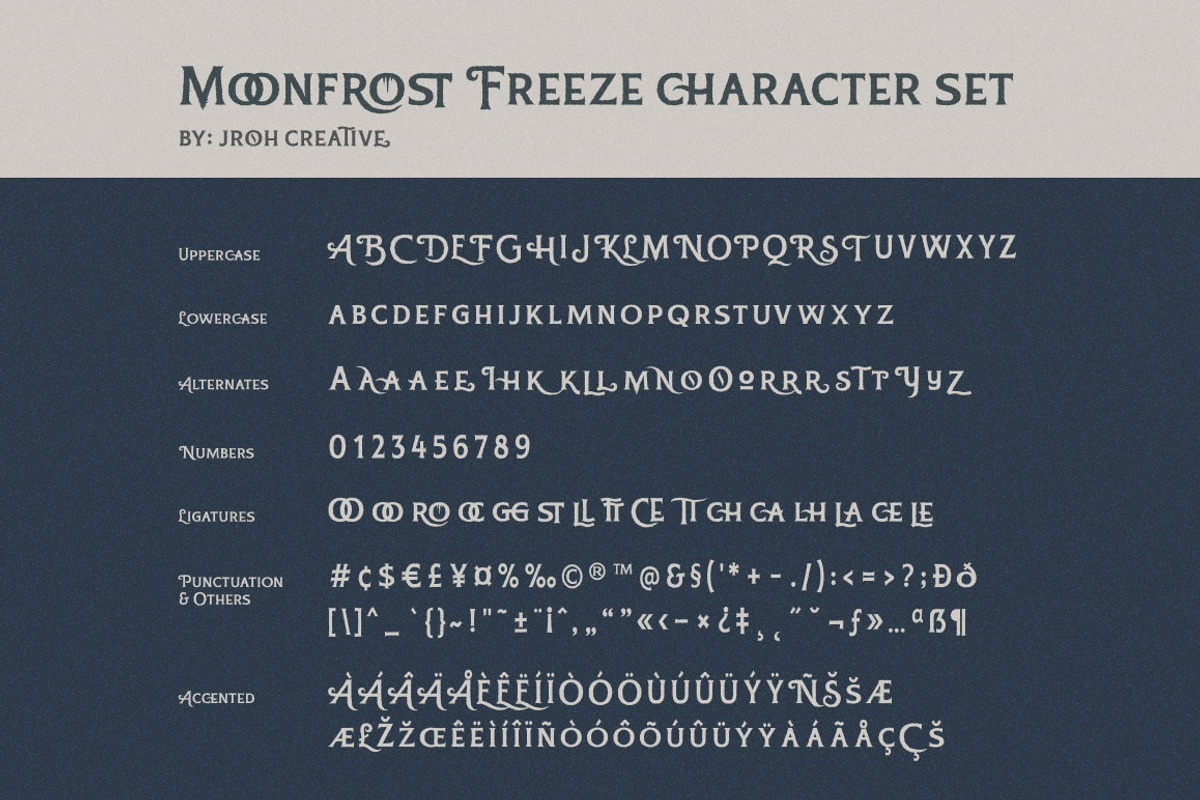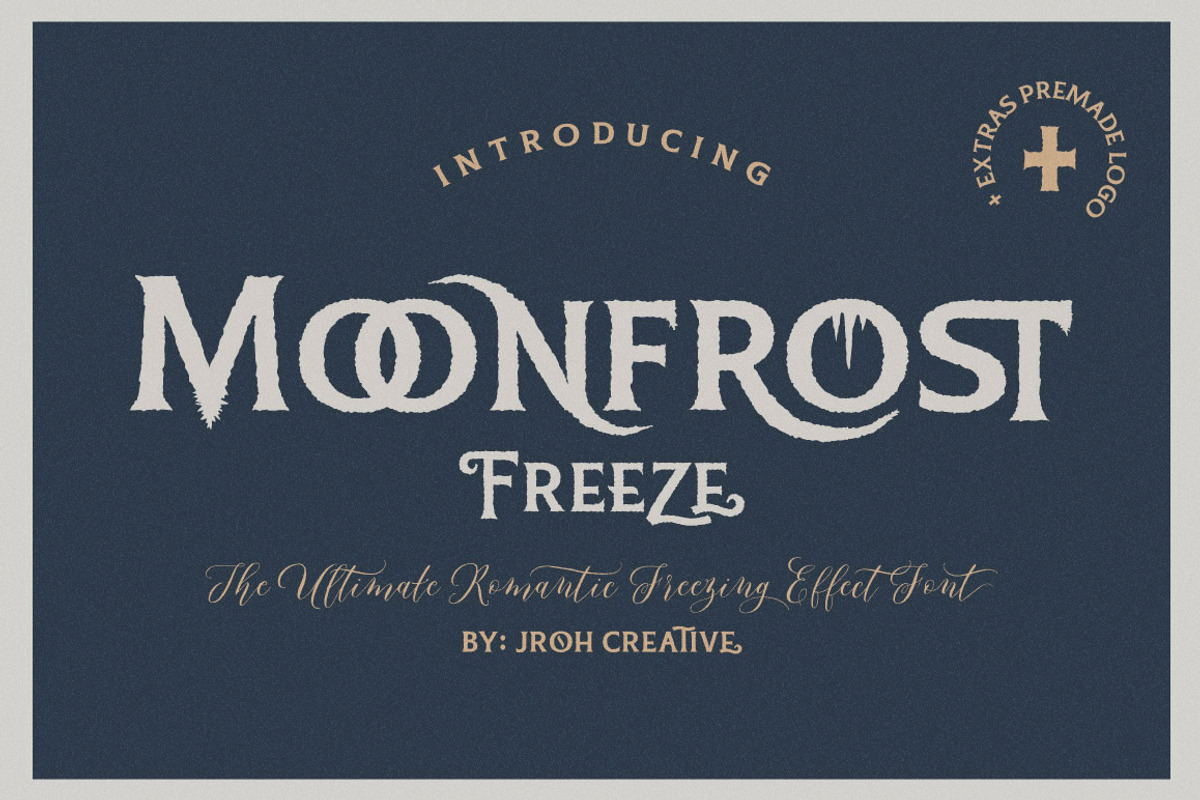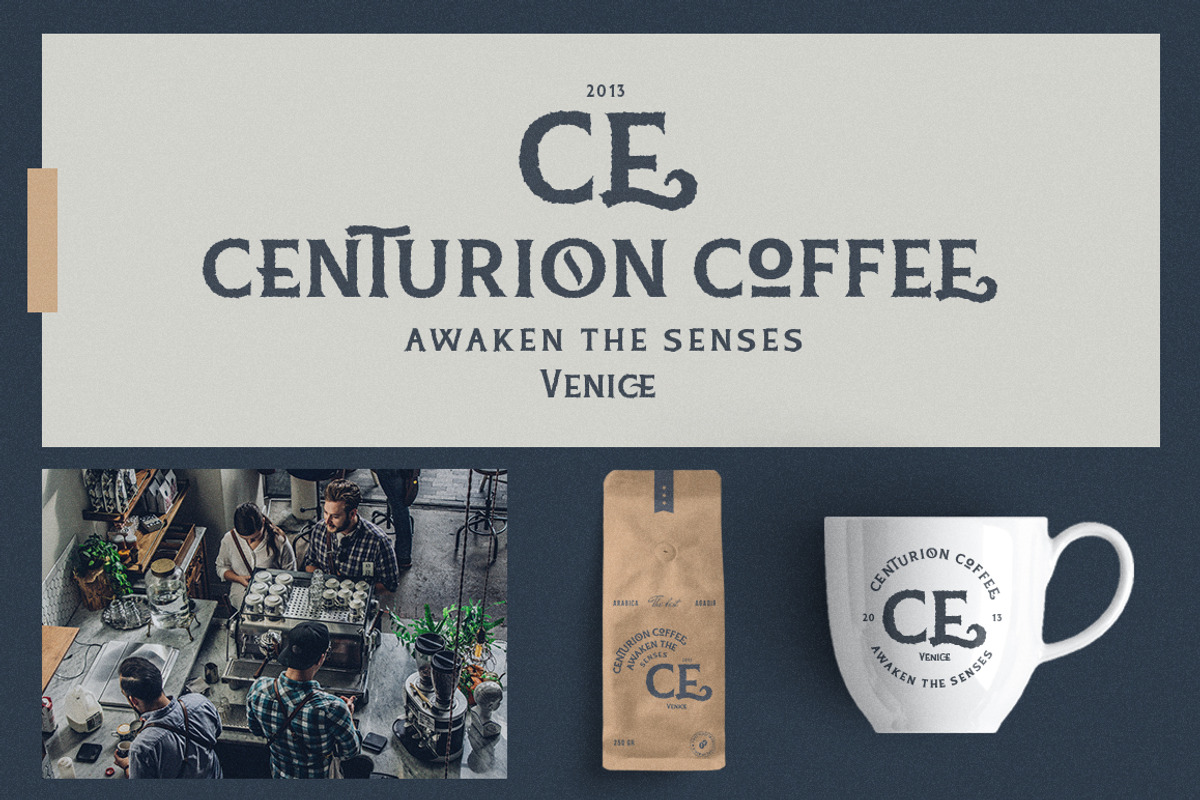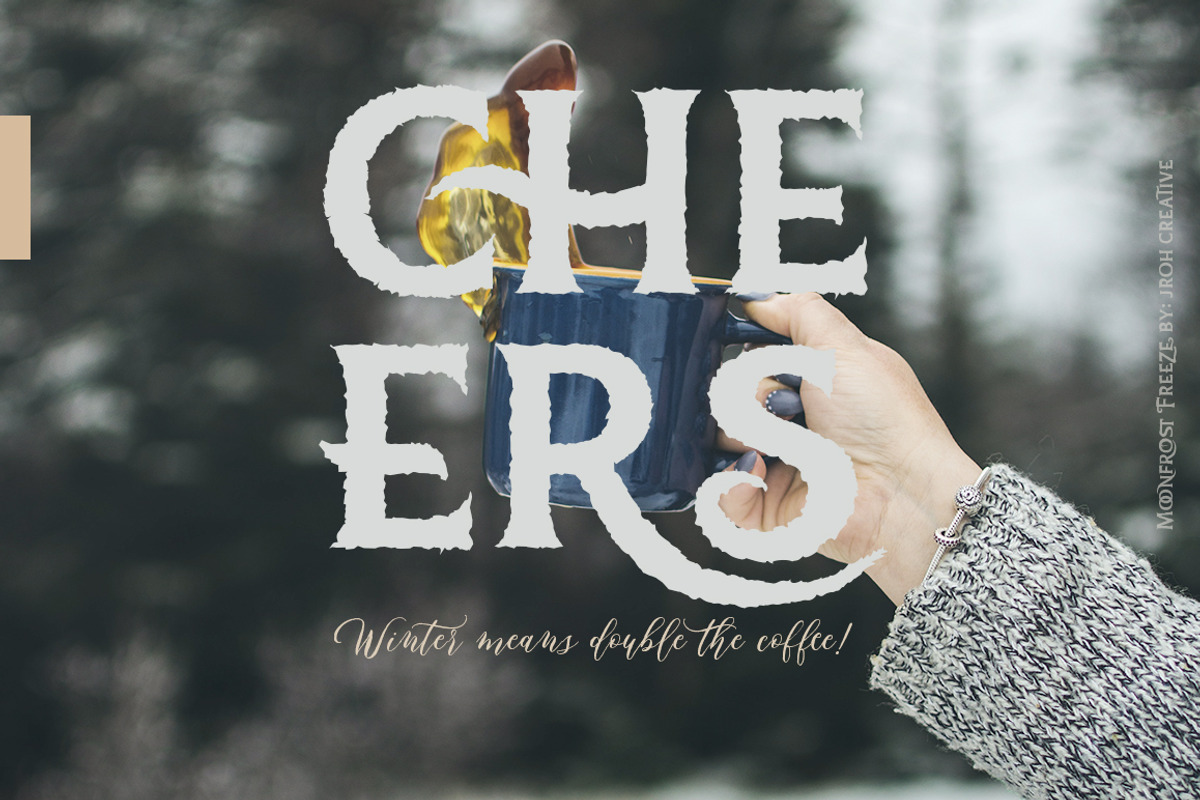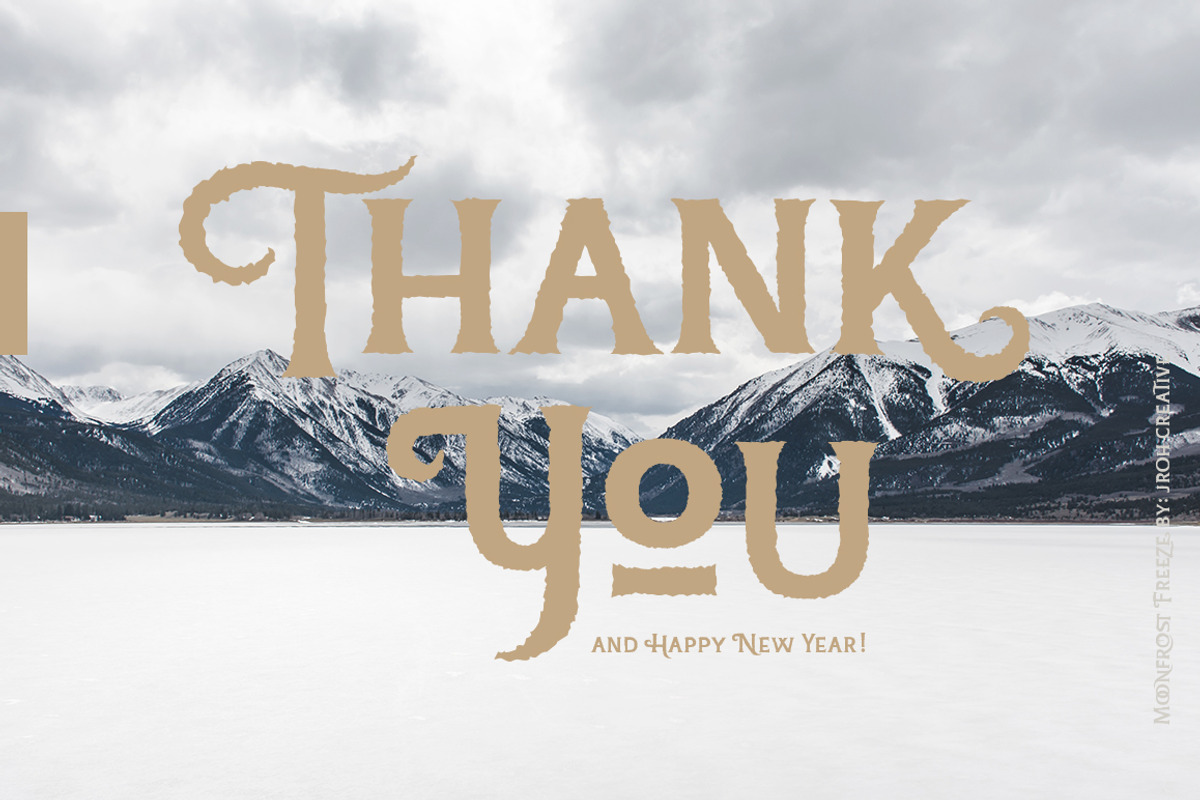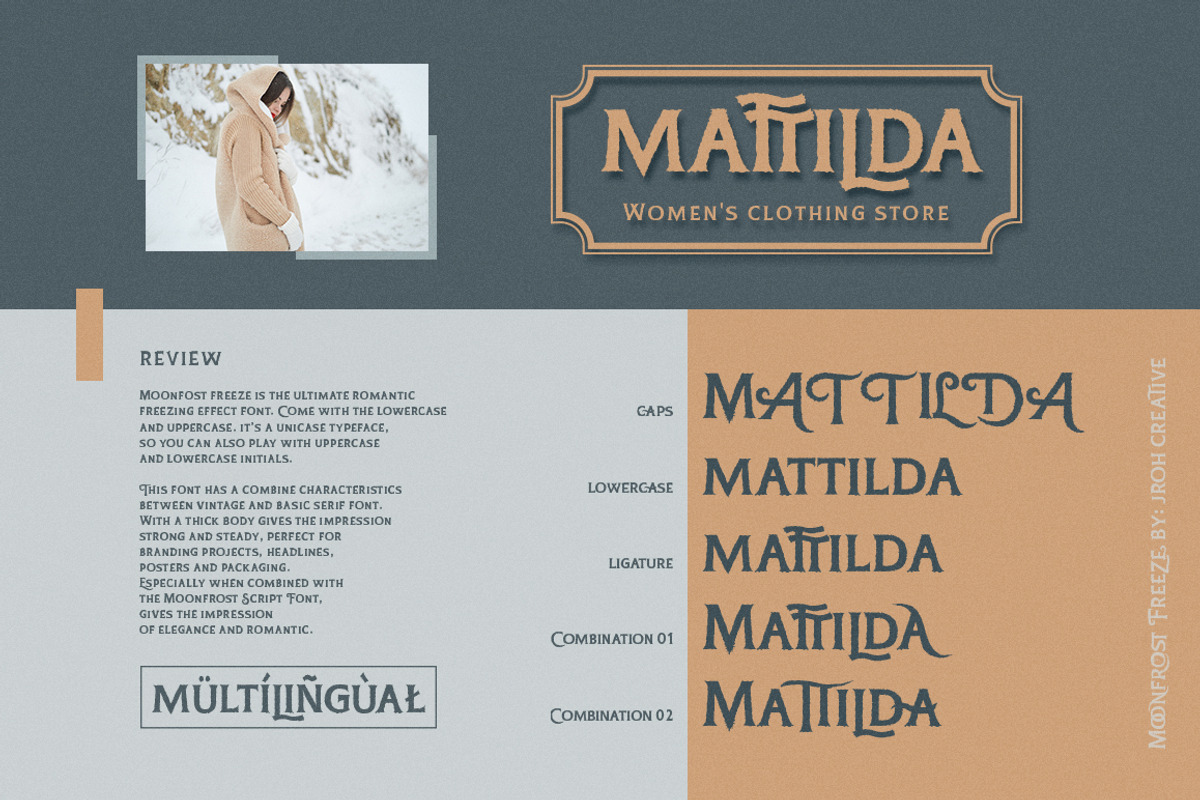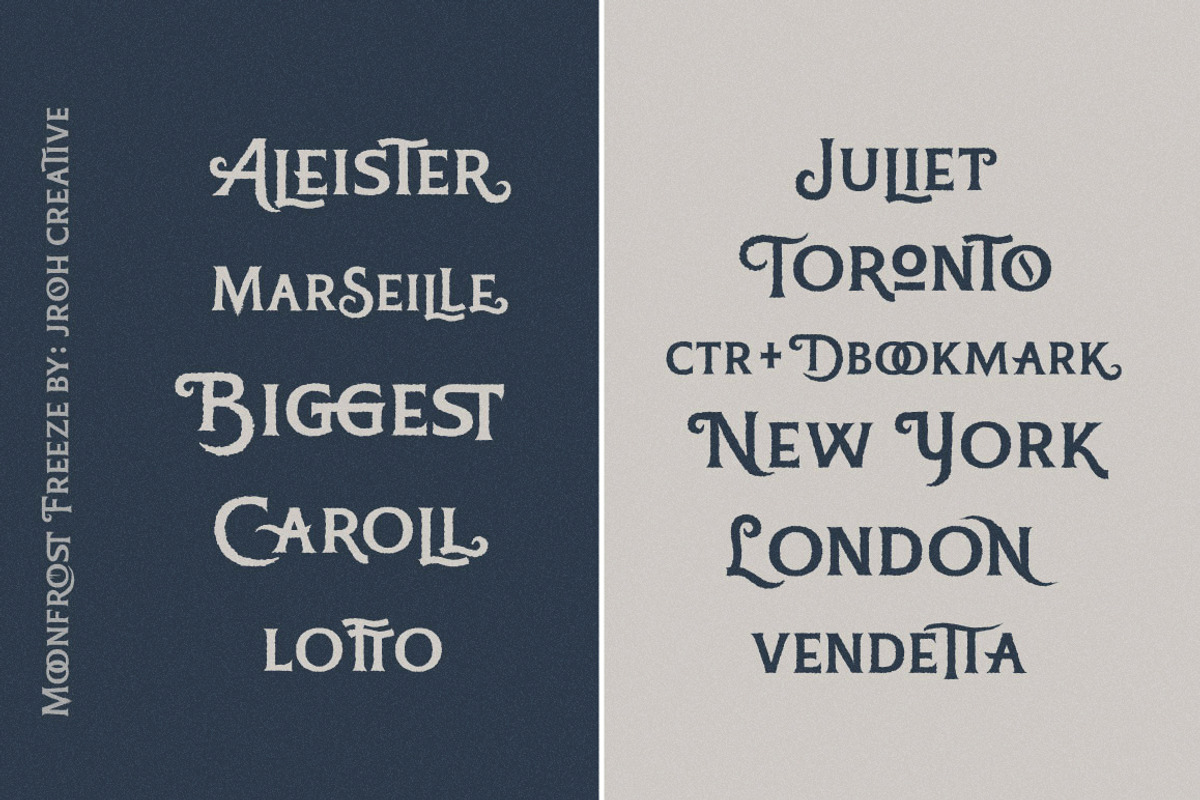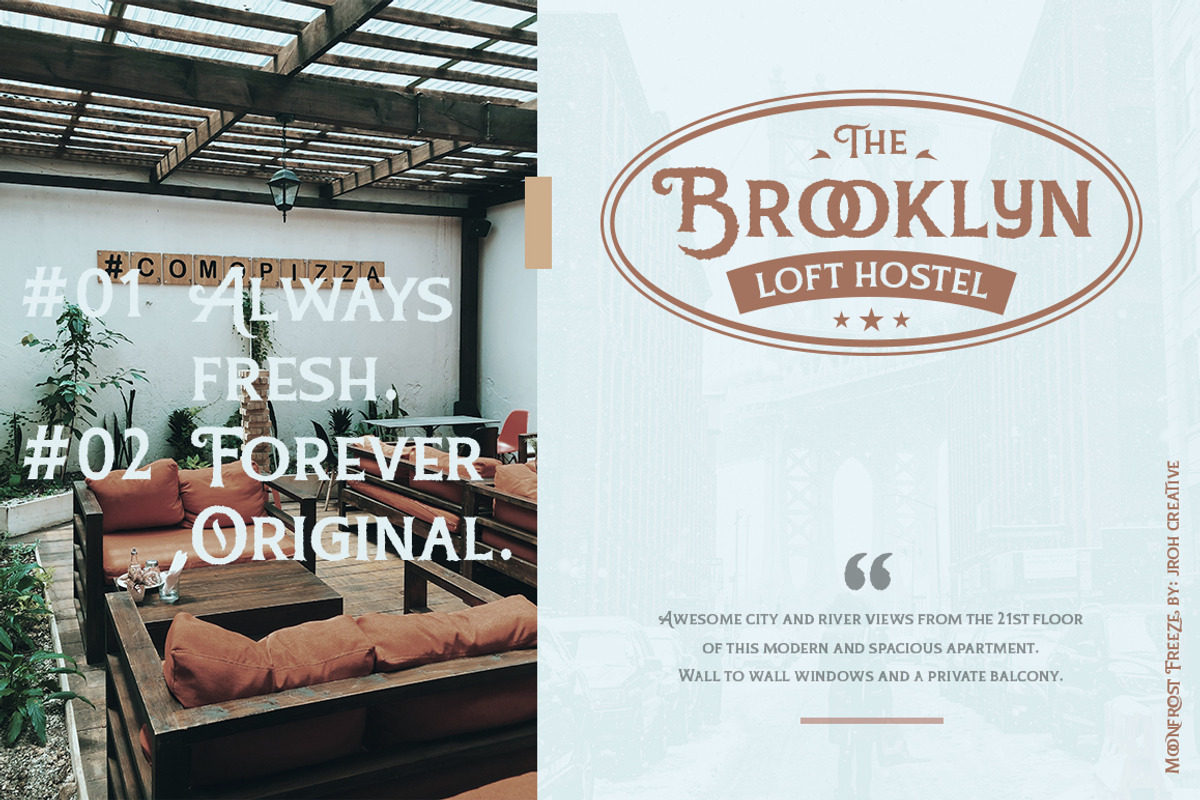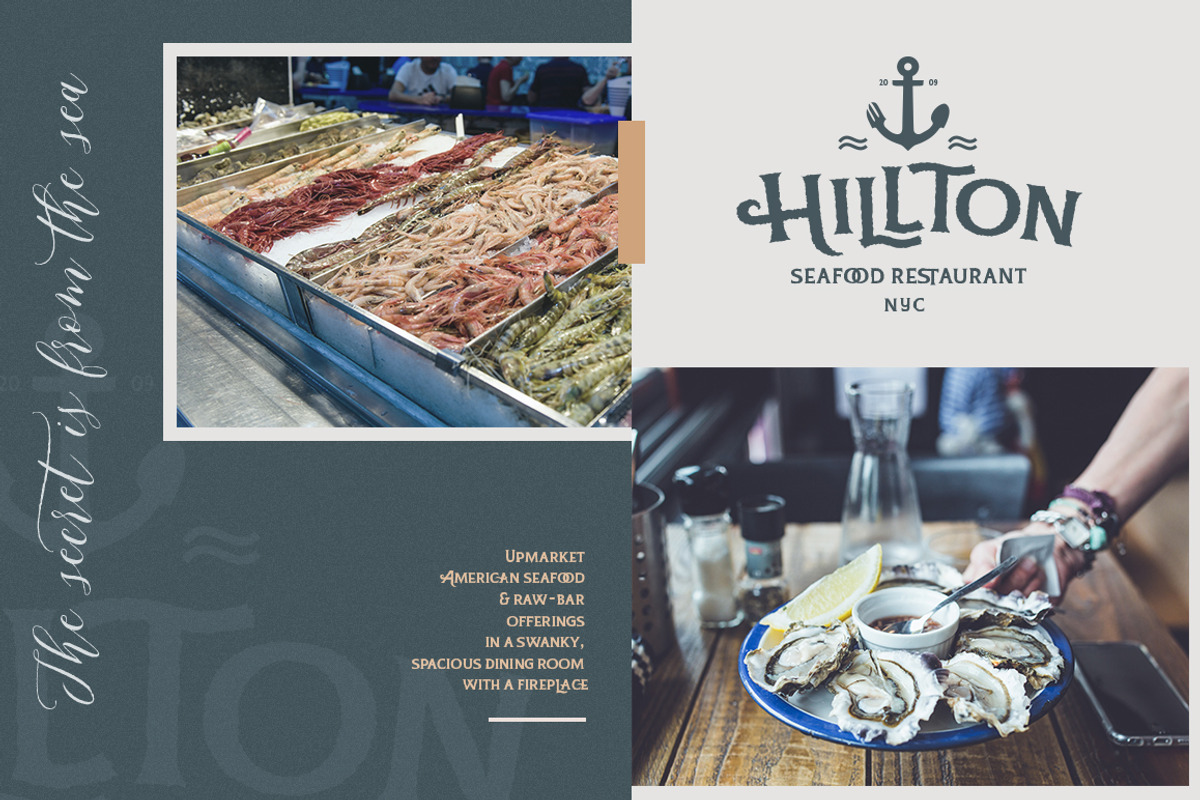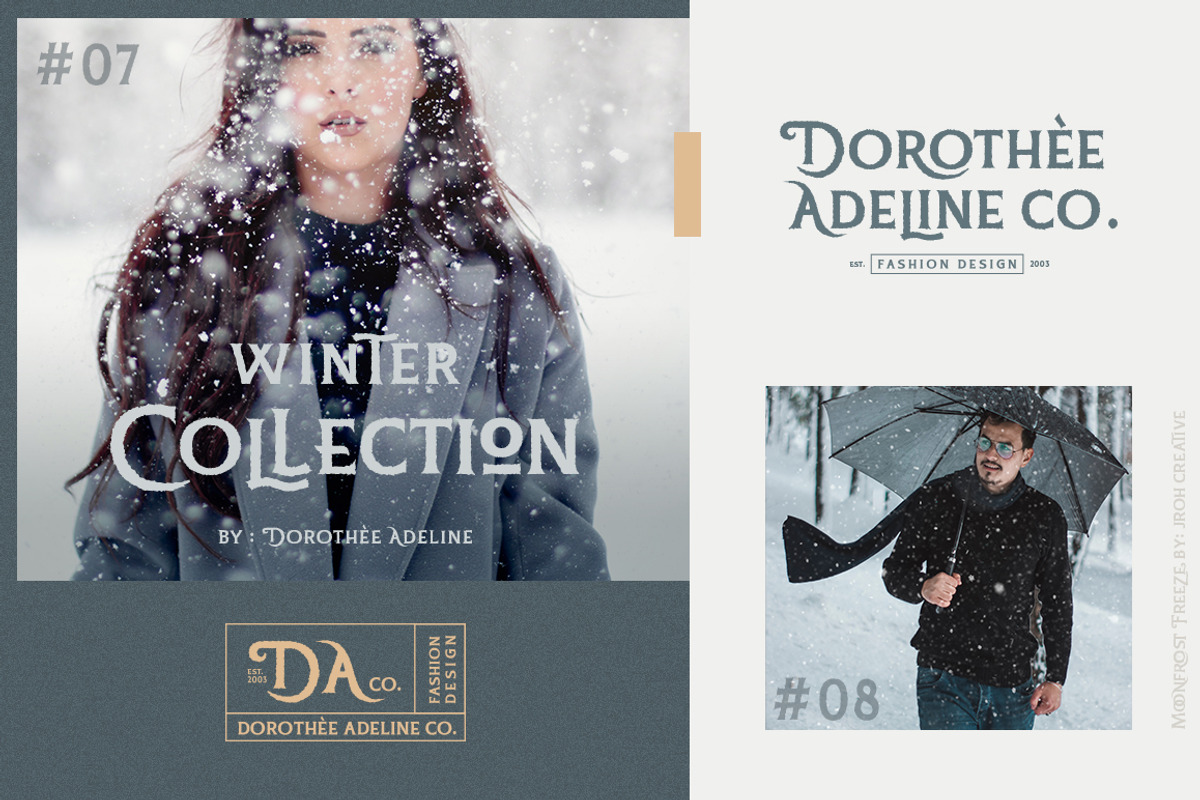
Moonfrost Freeze Font + Extras
Hello! I want to introduce my new font, Moonfrost Freeze. Moonfost freeze is the ultimate romantic freezing effect font. Come with the lowercase and uppercase. it’s a unicase typeface, so you can also play with uppercase and lowercase initials and others.
This font has combine characteristics between vintage and basic serif font. With a thick body gives the impression strong and steady, perfect for branding projects, headlines, posters, and packaging. Especially when combined with the Moonfrost script font, it gives the impression of elegance and romance.
- More Ligatures
- More Alternates